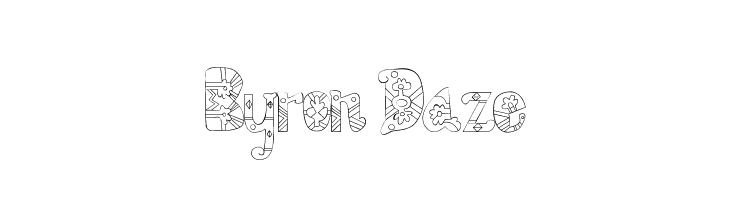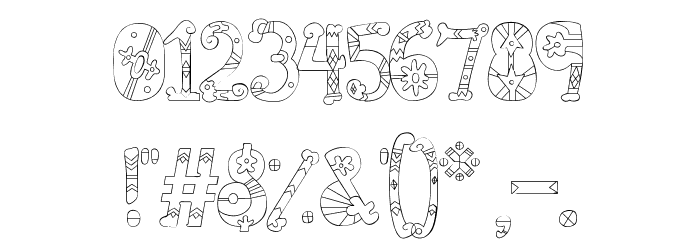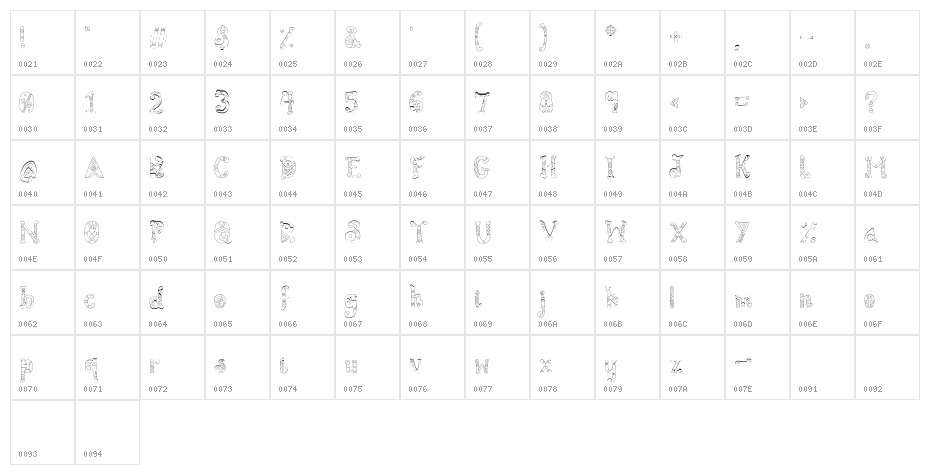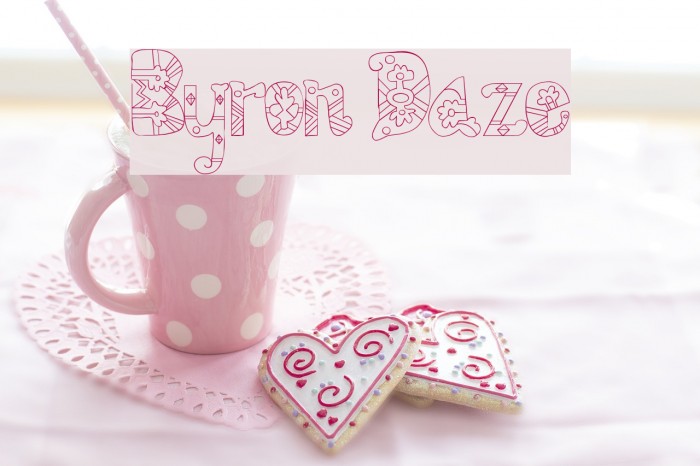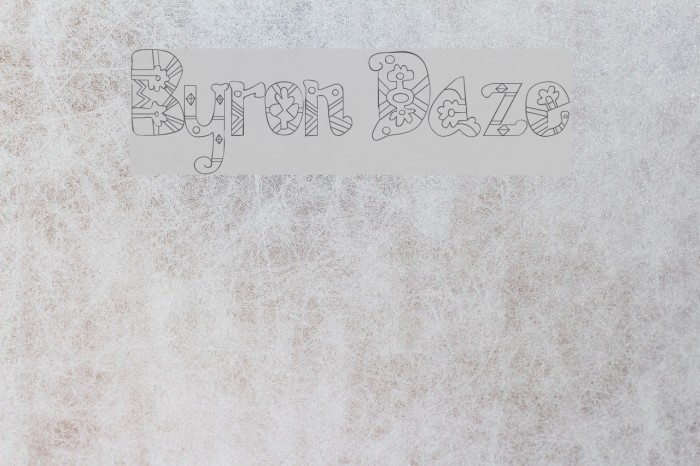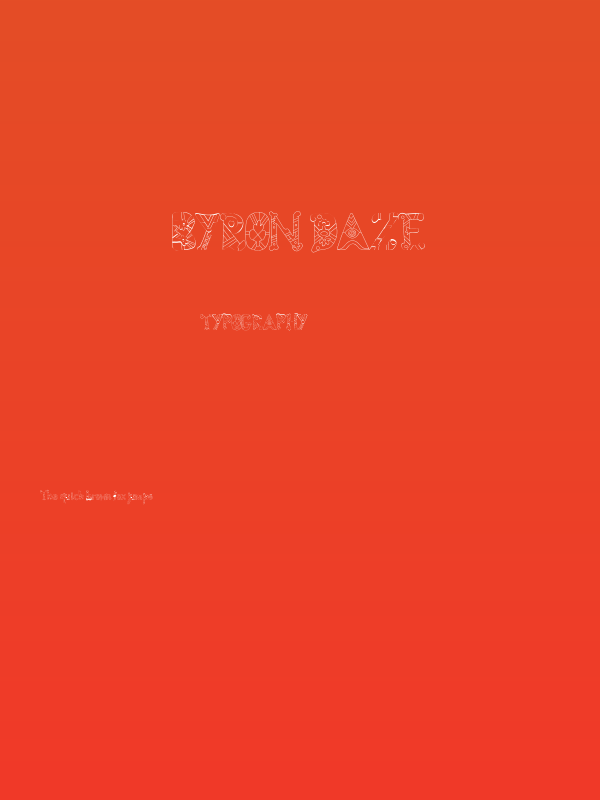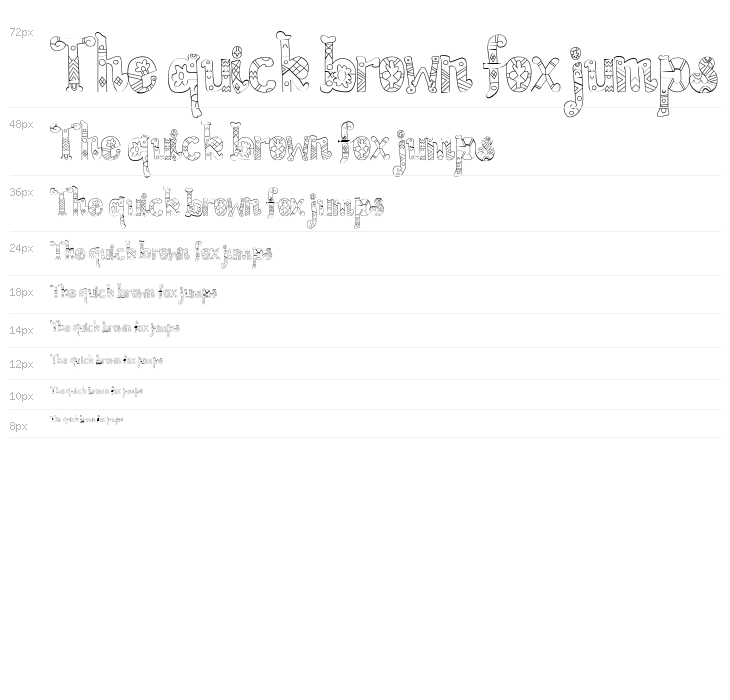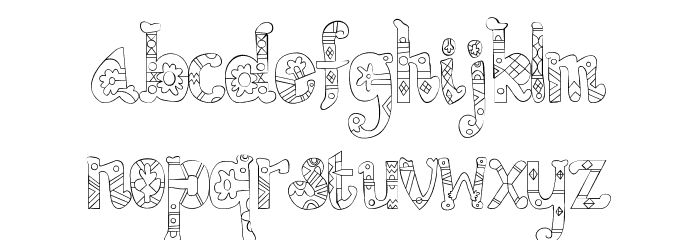
Byron Daze Font
Byron Daze Description
This font is a highly decorative and playful typeface, featuring intricate patterns and whimsical designs within each character. The letters are filled with floral motifs, geometric shapes, and abstract elements, creating a vibrant and artistic appearance. Each character is unique, with varying patterns that add a sense of individuality and creativity. The font has a hand-drawn, doodle-like quality, making it ideal for projects that require a fun and engaging aesthetic. The overall style is reminiscent of a coloring book or a handcrafted art piece, offering a sense of joy and creativity.
| Proposed Projects | Ideal for children's book covers, creative posters, art projects, and playful branding. |